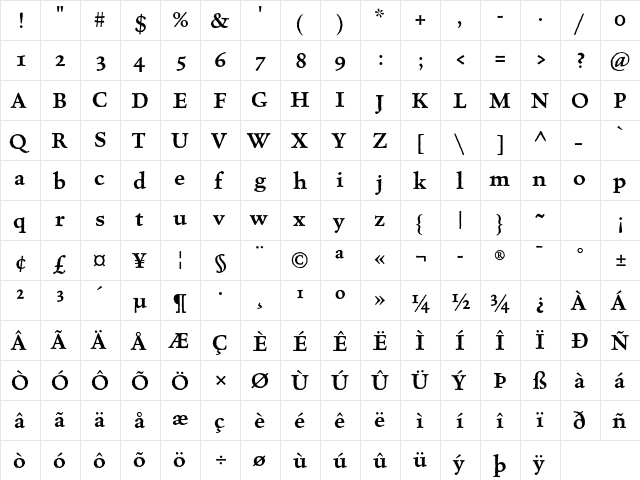
Celestia Antiqua Std Semibold
| Designer | Mark van Bronkhorst |
Design Context for Celestia Antiqua Std Typeface
Celestia Antiqua Std is a composed and adaptable typeface that performs quietly and consistently across a wide range of design contexts. The heavy weight commands attention and anchors typographic hierarchies.
Pro Tip: Use Celestia Antiqua Std in both headline and body roles to test its range before committing to a single application.